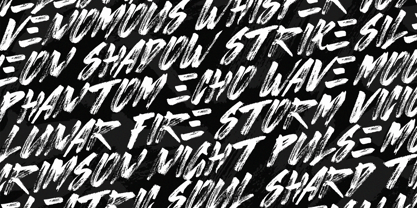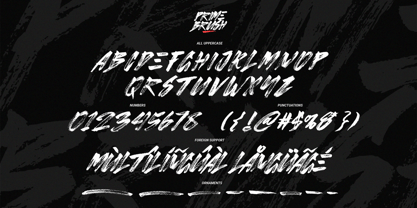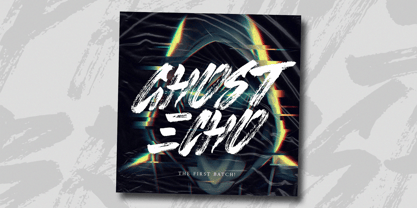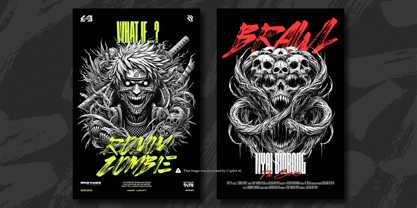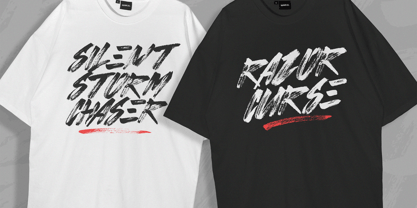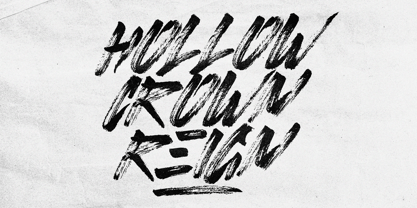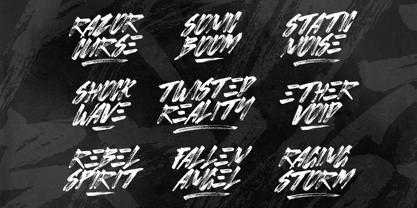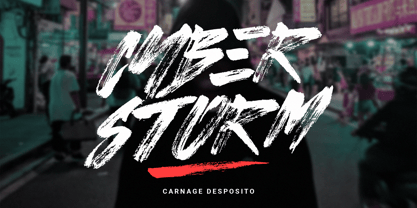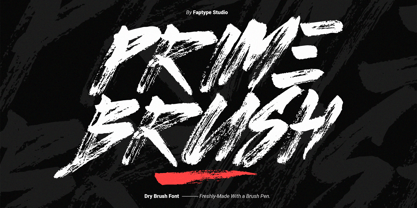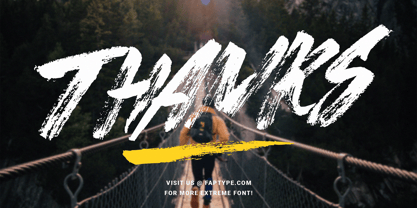
Prime Brush
Introducing Prime Brush, a handcrafted dry brush font that captures the raw energy of bold strokes and dynamic movement. Created manually using a real dry brush, each letter is painted with precision, scanned, and digitally refined to maintain its natural texture and organic imperfections. The result is a font that feels alive—packed with expressive details that bring authenticity to any design. Whether you’re working on a bold headline, an eye-catching logo, or artistic branding, Prime Brush delivers an impactful, high-energy aesthetic.
Designed with all-uppercase characters, this font is meant to make a statement. It includes a full set of symbols, punctuation, and swashes, giving you the creative freedom to add motion and flair to your typography. With built-in multilingual support, it seamlessly adapts to a variety of languages, making it a versatile choice for global projects. The rough, textured strokes of Prime Brush bring out an effortless balance between chaos and control—perfect for projects that demand a raw, rebellious, and energetic touch.
From posters, apparel, and album covers to branding, packaging, and social media graphics, this font fits seamlessly into any design that craves authenticity. Whether you’re crafting streetwear aesthetics, grunge-style visuals, or high-impact advertising, Prime Brush ensures your message is delivered with power and confidence. Let your creativity flow and make a bold impression with this rugged, hand-drawn masterpiece.
Prime Brush Features:
• A full set of Uppercase
• Numbers and Punctuation
• Multilingual Language Support
• PUA Encoded Characters
• OpenType Features
• +248 Total Glyphs
• Dry Brush Swashes included! (You can access the ornaments in Photoshop by navigating to Window > Glyphs)